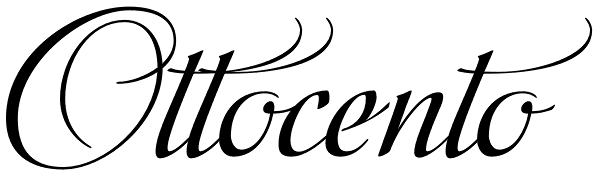
Ottocento
Ottocento is an elegant chancery cursive, derived from XIXth century Italian calligraphy. Slightly inclined and with a fast and marked ductus, this font is well balanced between thick and thin strokes and shows marked ascendings and descendings...